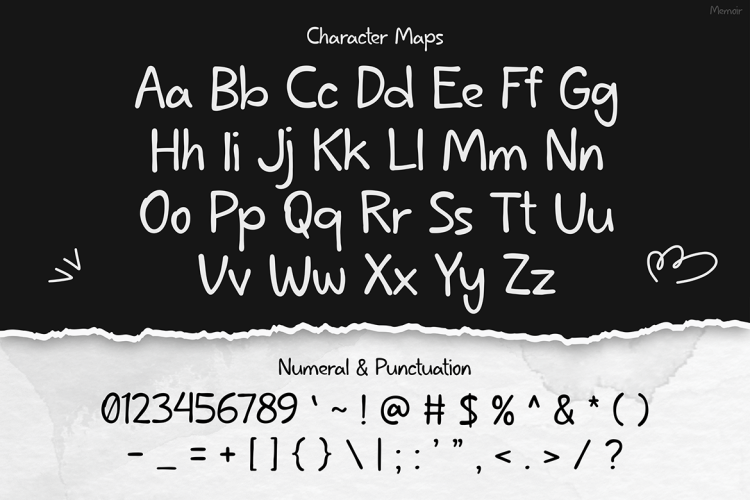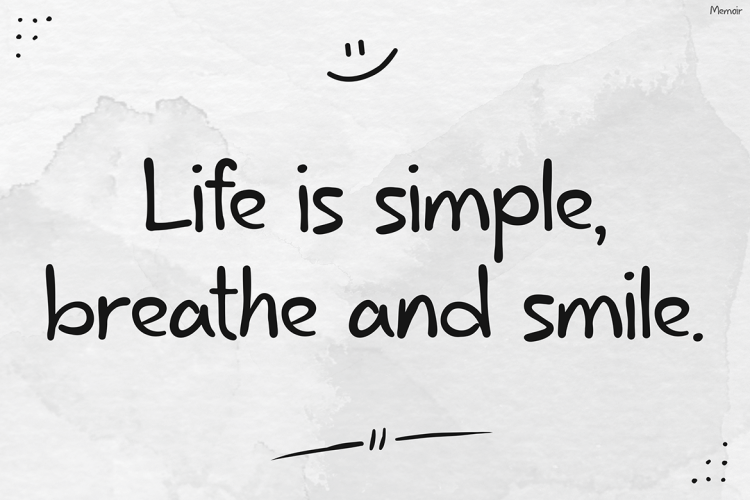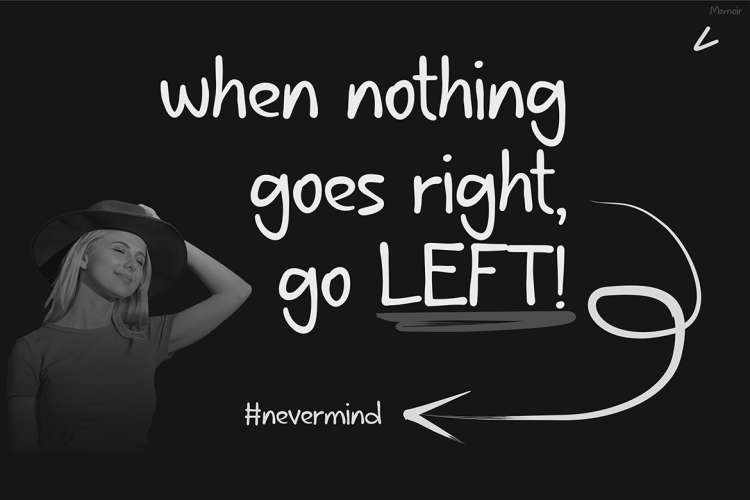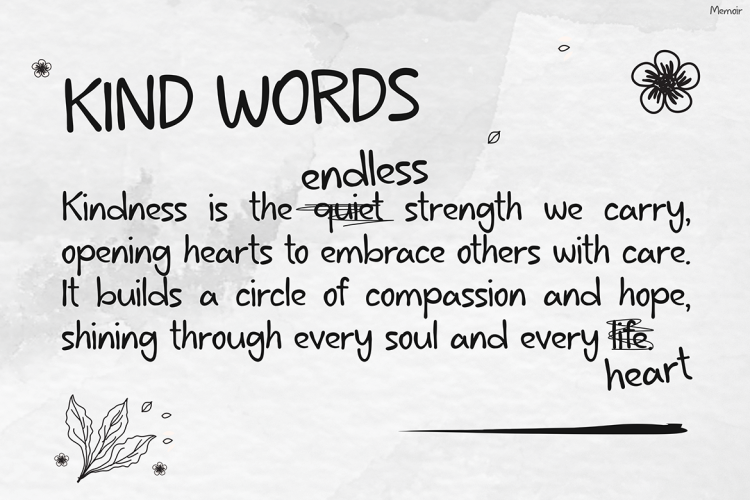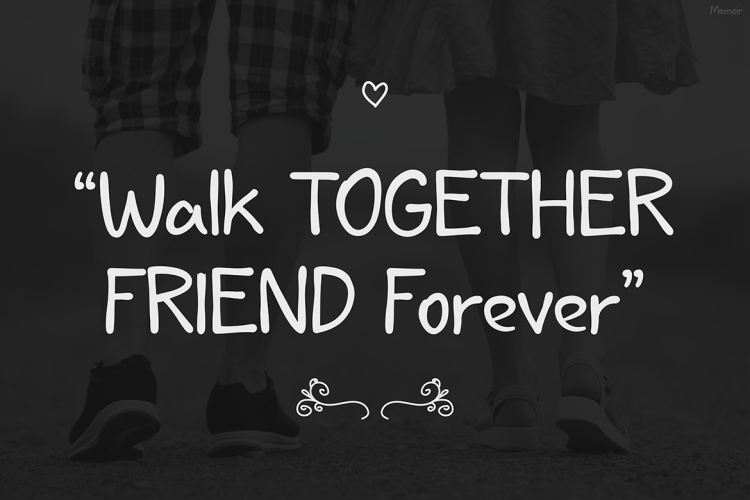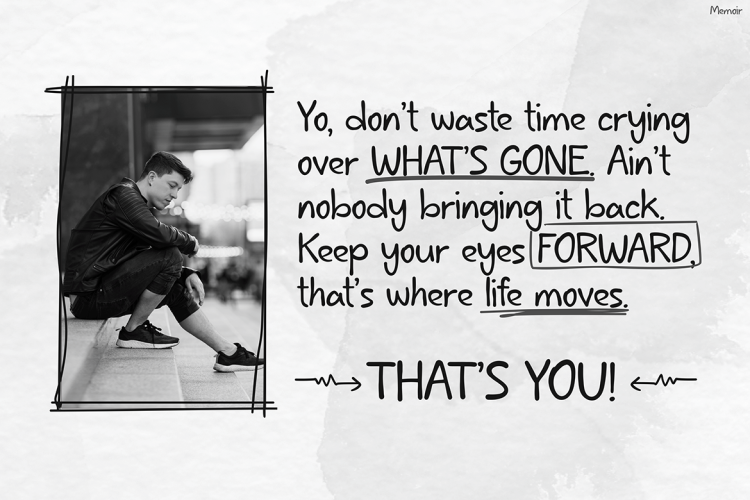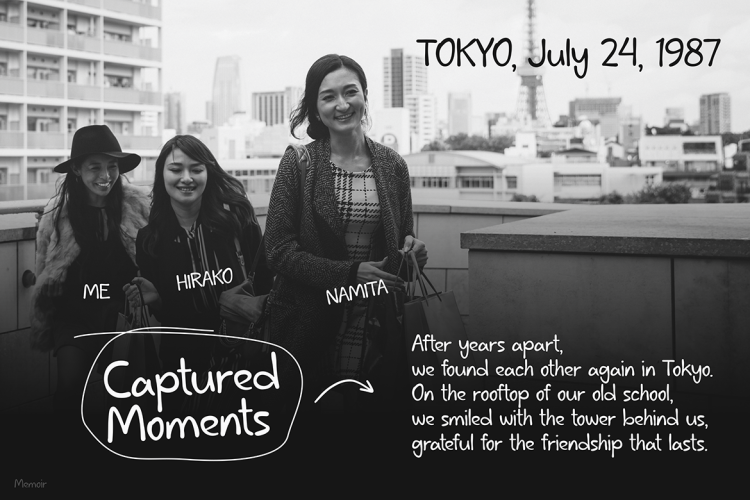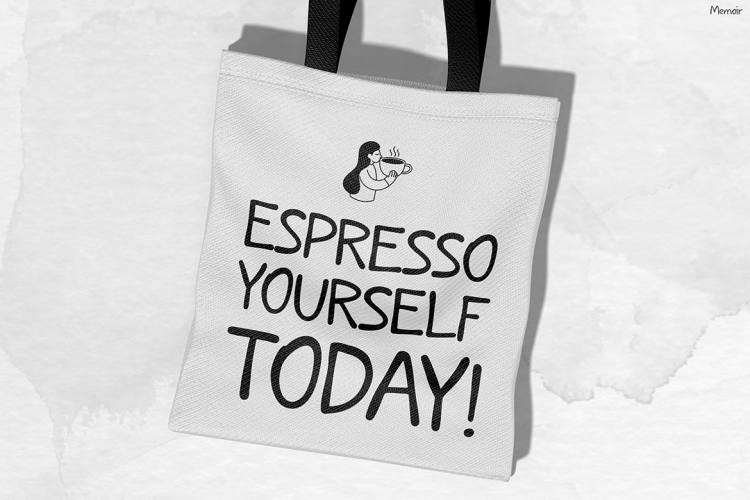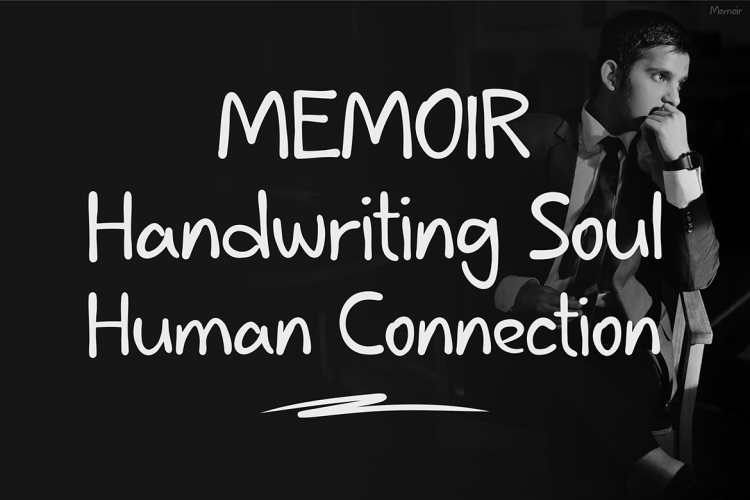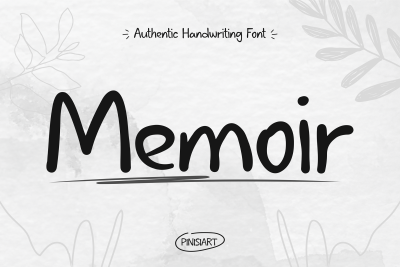
A Font That Feels Like Real Handwriting
Handwriting Font Memoir is not just a fontโitโs an experience. Each stroke feels natural, each curve flows like it was written by hand, giving your designs a warm and personal vibe. Instead of feeling digital and cold, Memoir shines with an authentic touch, making every word feel alive and genuine.
This font blends simplicity with charm, making it versatile for both casual quotes and professional branding. It captures the beauty of handwriting while staying clean and easy to read. Thatโs why it instantly adds depth, personality, and storytelling to any project you create.
Handwriting Font Memoir For
Handwriting Font Memoir is designed for creators who value authenticity and human connection in their work. If youโre a social media influencer, this font gives your posts a friendly, eye-catching look. For business owners and brands, Memoir adds charm to packaging, logos, cafรฉ menus, tote bags, and more.
Itโs also perfect for bloggers, journaling enthusiasts, teachers, and event designers who want their projects to feel closer, warmer, and more relatable. Wedding planners and stationery designers will appreciate its personal touch for invitations, thank-you notes, or love quotes.
Beyond that, graphic designers can use Memoir to build unique posters, digital ads, or product mockups that instantly catch attention. Even students and hobbyists who simply want to make their school projects or scrapbooks look stylish will enjoy how easy it is to use. Memoir adapts to any setting, big or small, without losing its personality.
Why You Need It
When you use Handwriting Font Memoir, your designs instantly gain personality. It doesnโt just decorate your textโit gives it a soul. Every message feels warmer, every quote feels more powerful, and every design feels more memorable.